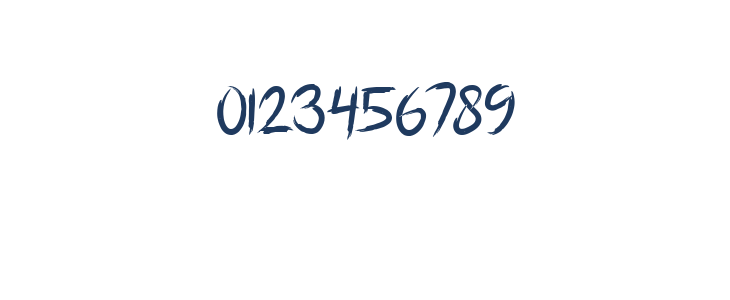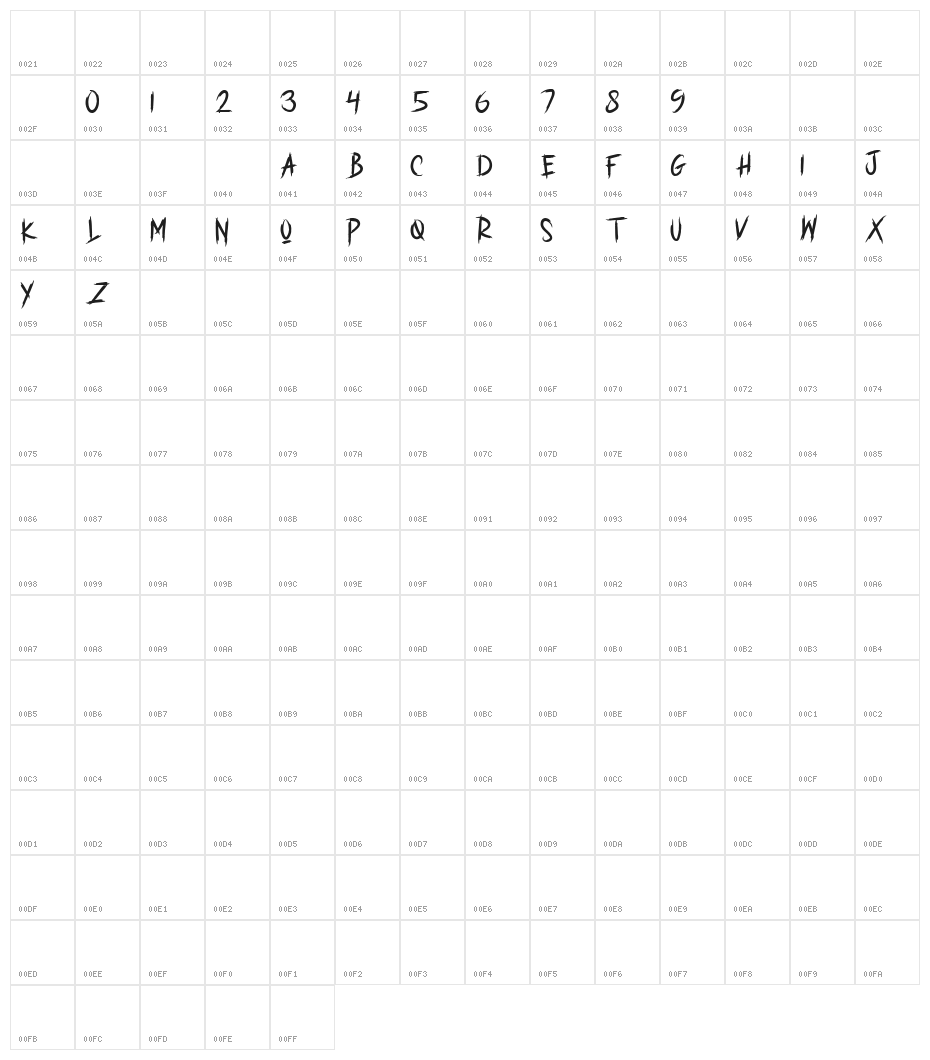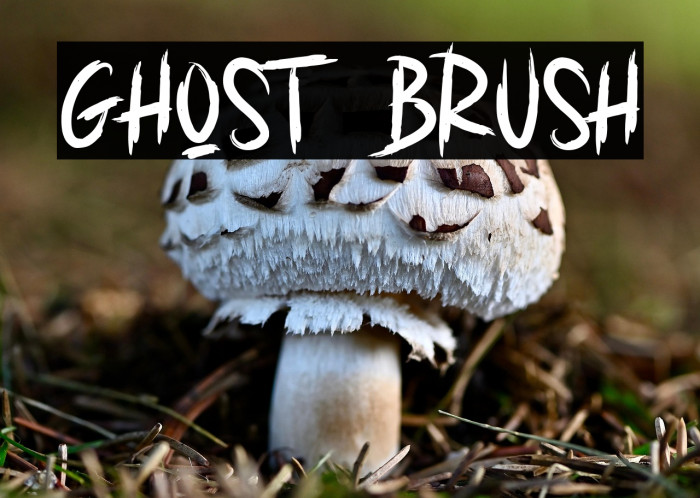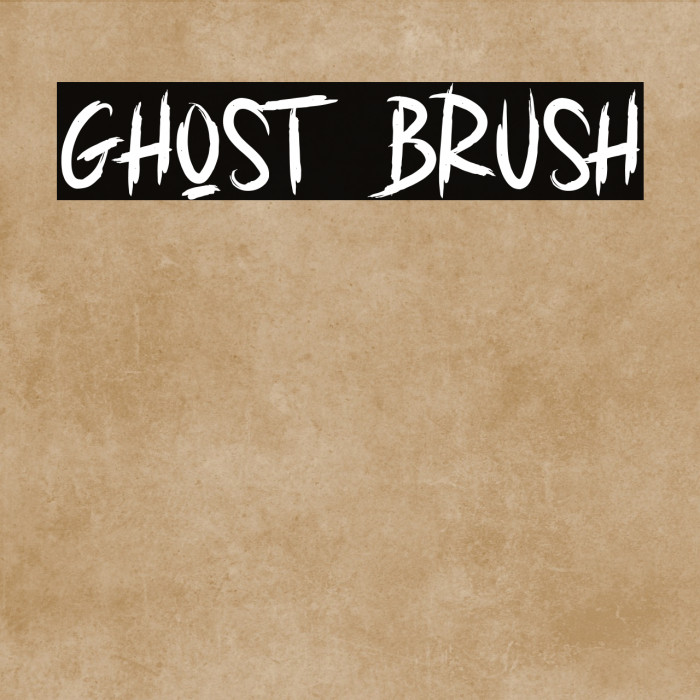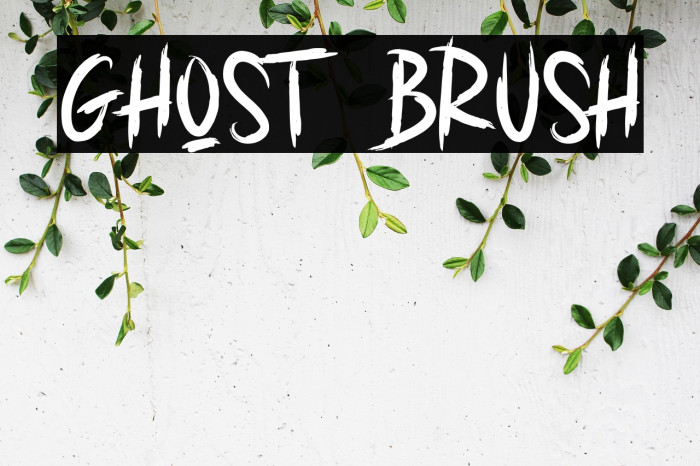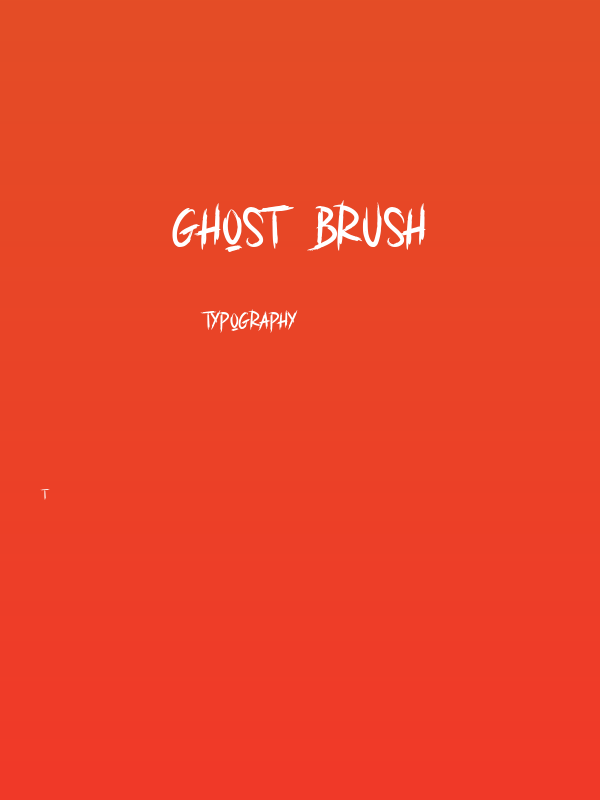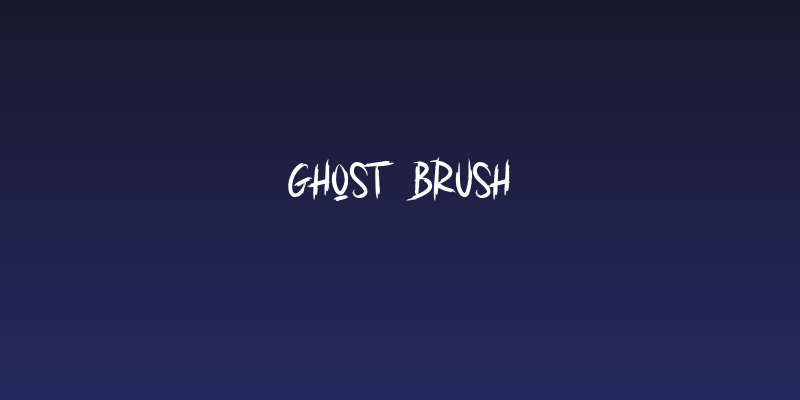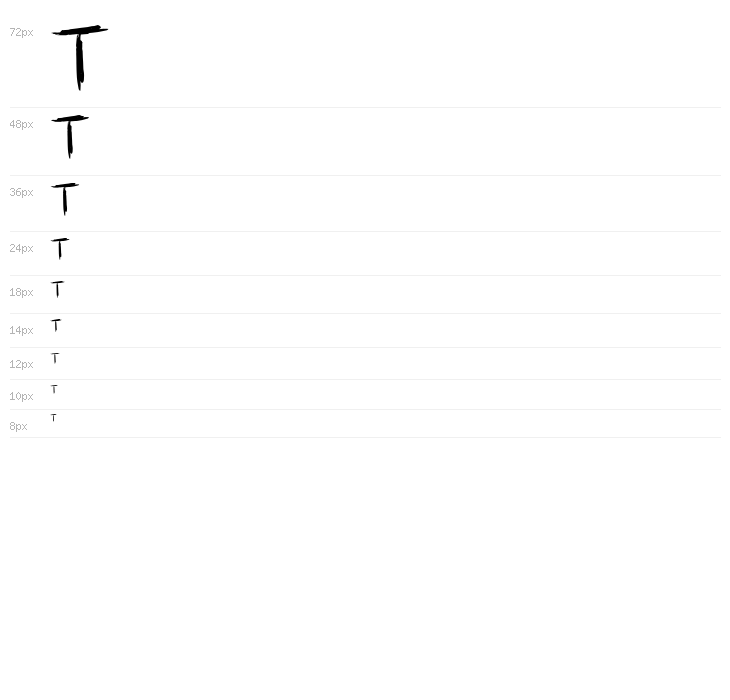
GHOST BRUSH Font
GHOST BRUSH Description
This font features a bold and dynamic brush style, characterized by its rough, textured strokes that give it a hand-painted appearance. The uppercase letters are bold and expressive, with varying stroke widths that create a sense of movement and energy. The numbers follow the same style, maintaining consistency across the character set. This font is ideal for projects that require a dramatic and artistic touch, such as posters, album covers, or branding for creative industries. Its unique style makes it stand out, capturing attention with its raw and organic feel.
| Proposed Projects | Perfect for posters, album covers, branding, and creative projects. |